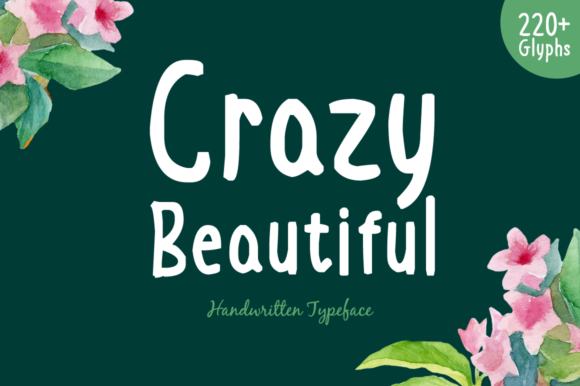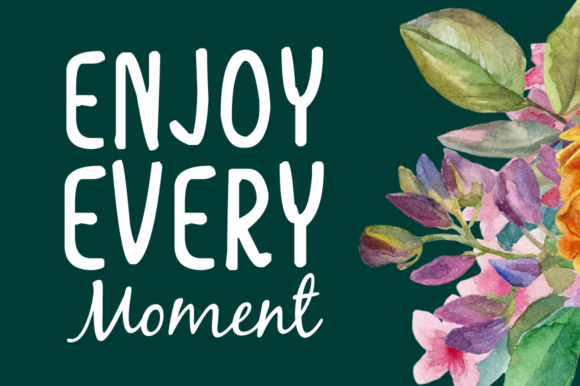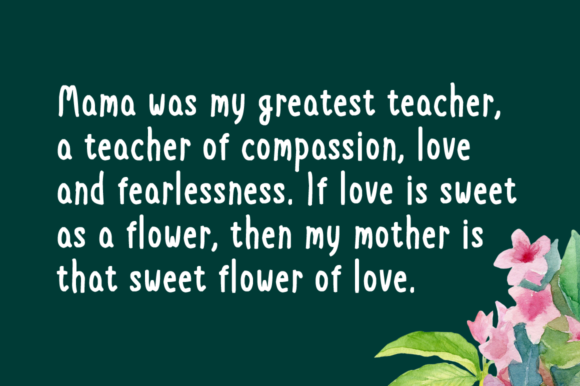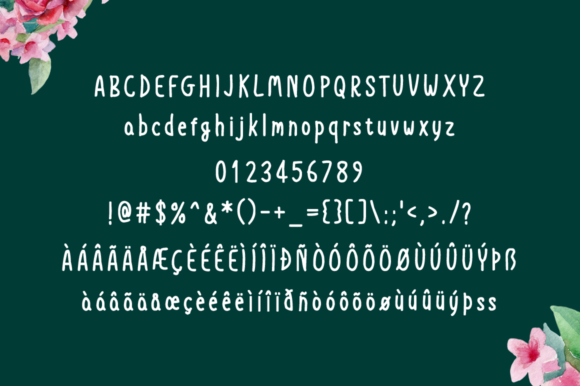
Crazy Beautiful Font
About Crazy Beautiful Font
The Crazy Beautiful is a brand new handwritten font. Crazy Beautiful is perfectly suited for stationery, logos, t-shirt, paper, print design, website header, photo frame, flyer, music cover, poster, image slider and much more.